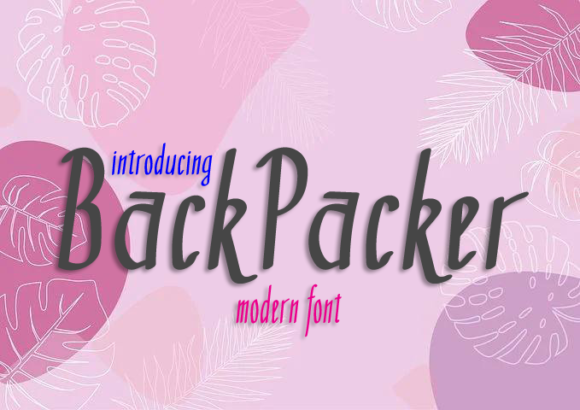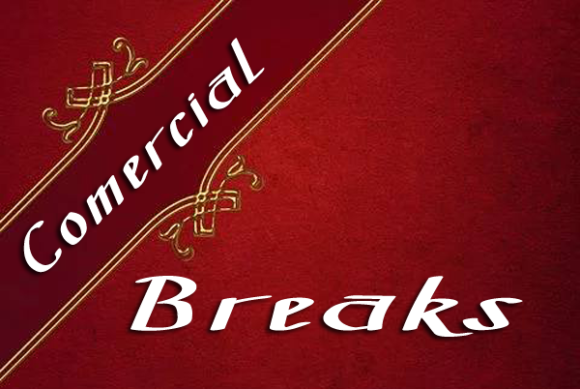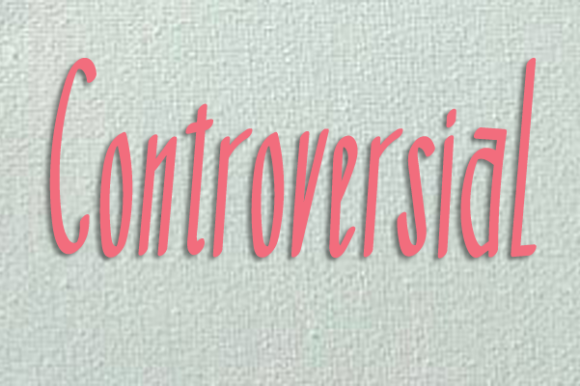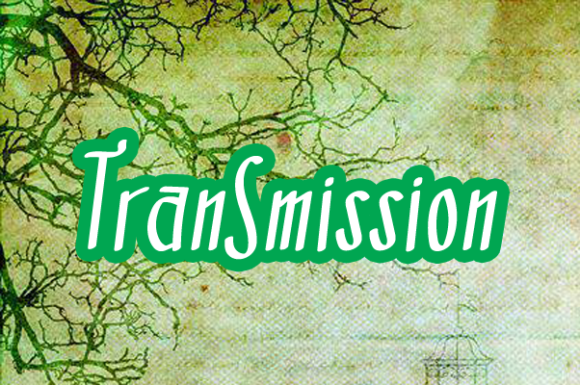
Backpacker Font
About Backpacker Font
Backpacker is a dainty and flowing handwritten font. Sweet and joyful, this font will be ideal for writing wedding invitations, cards or any other design that may need a romantic, personalized touch!